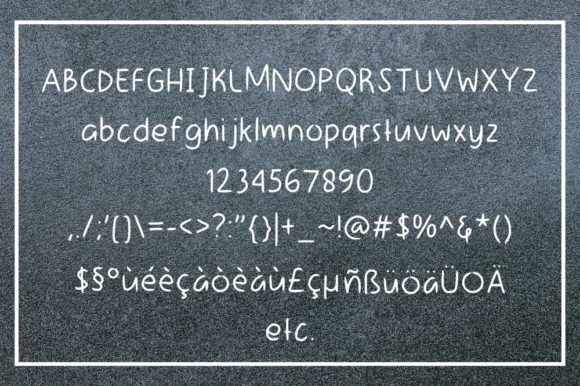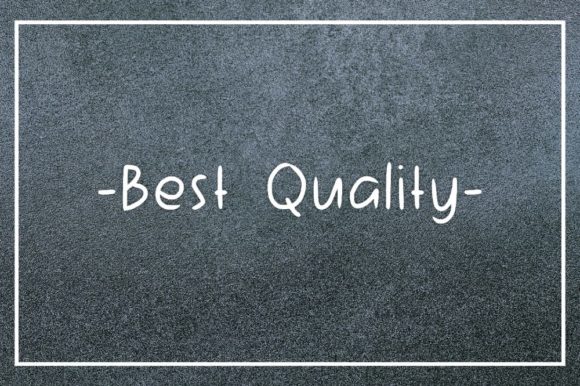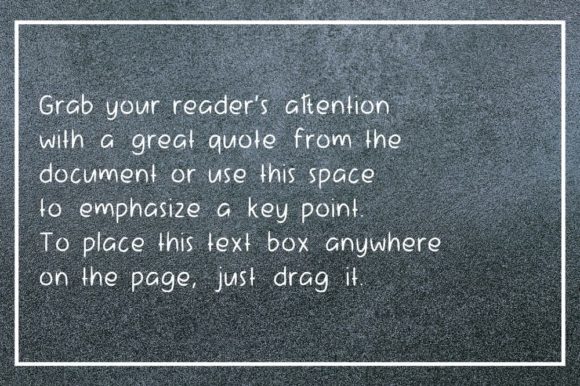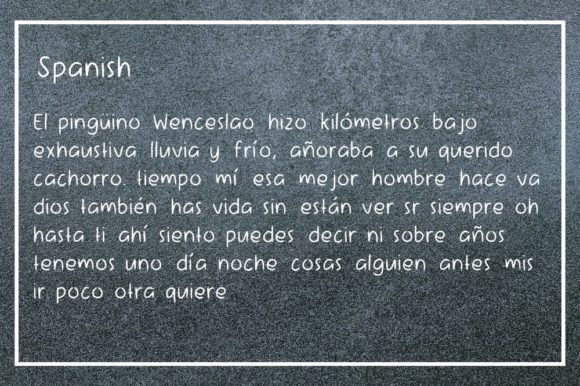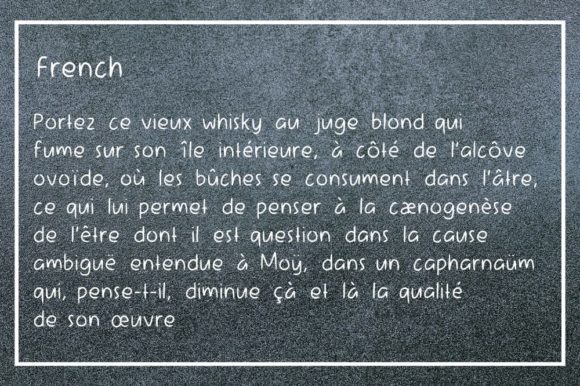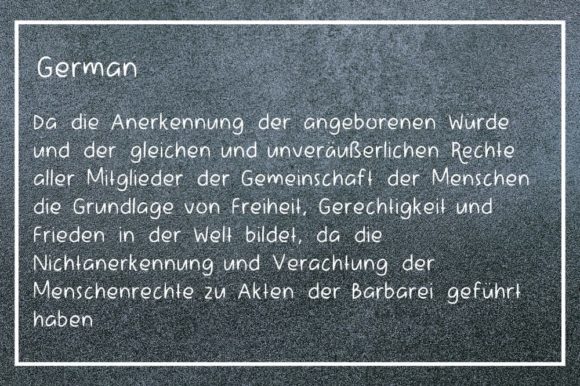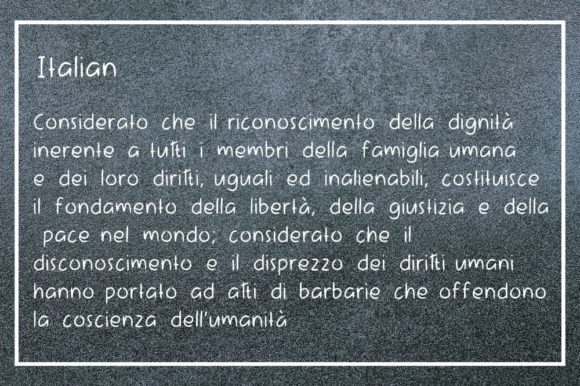
Battle of Kings Font
About Battle of Kings Font
Battle Of Kings is an amazing handwritten font, particularly adept for those who love script and regular designs. It is the perfect choice for invitations, posters, headers, flags, logos and much more.